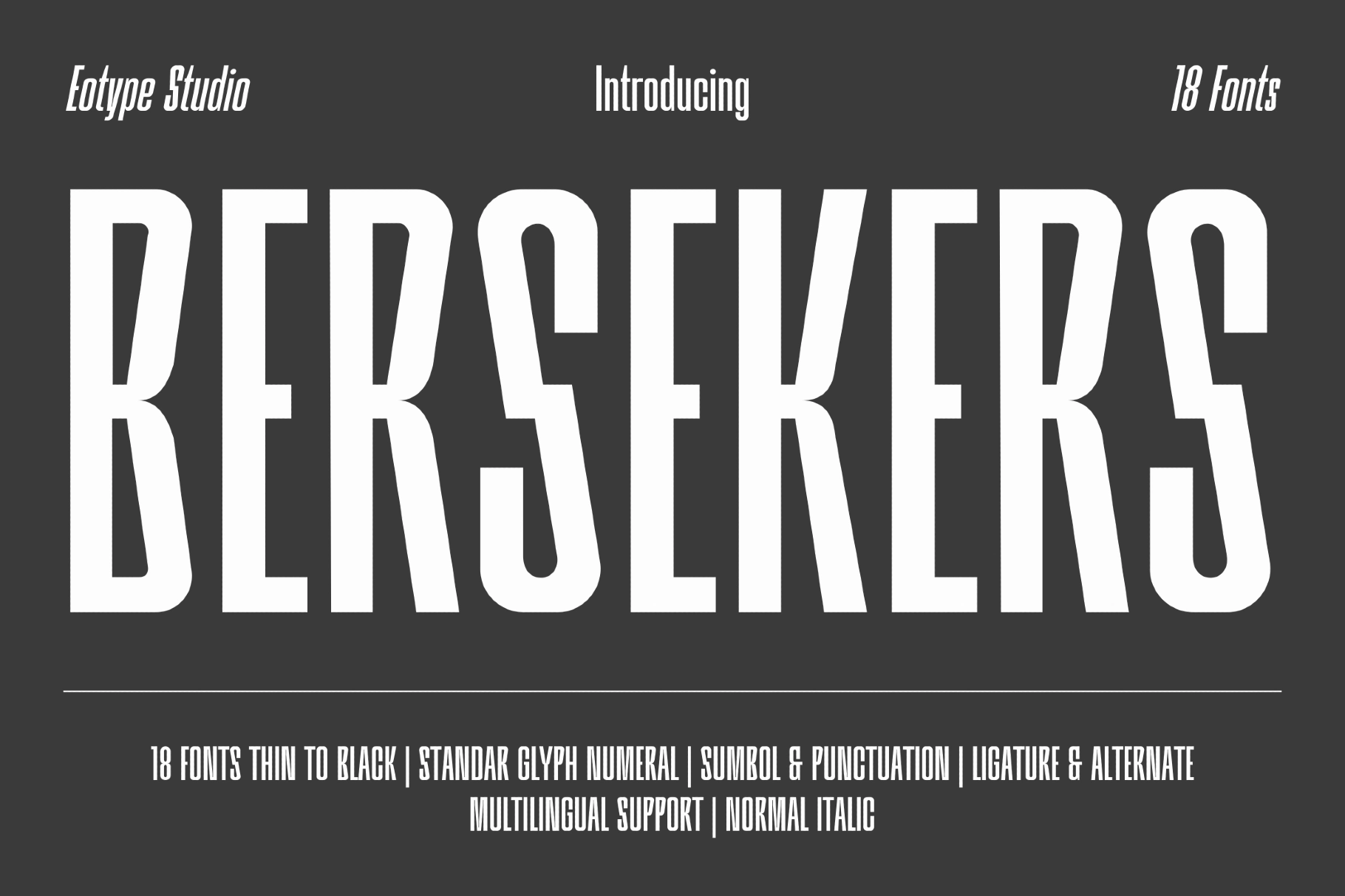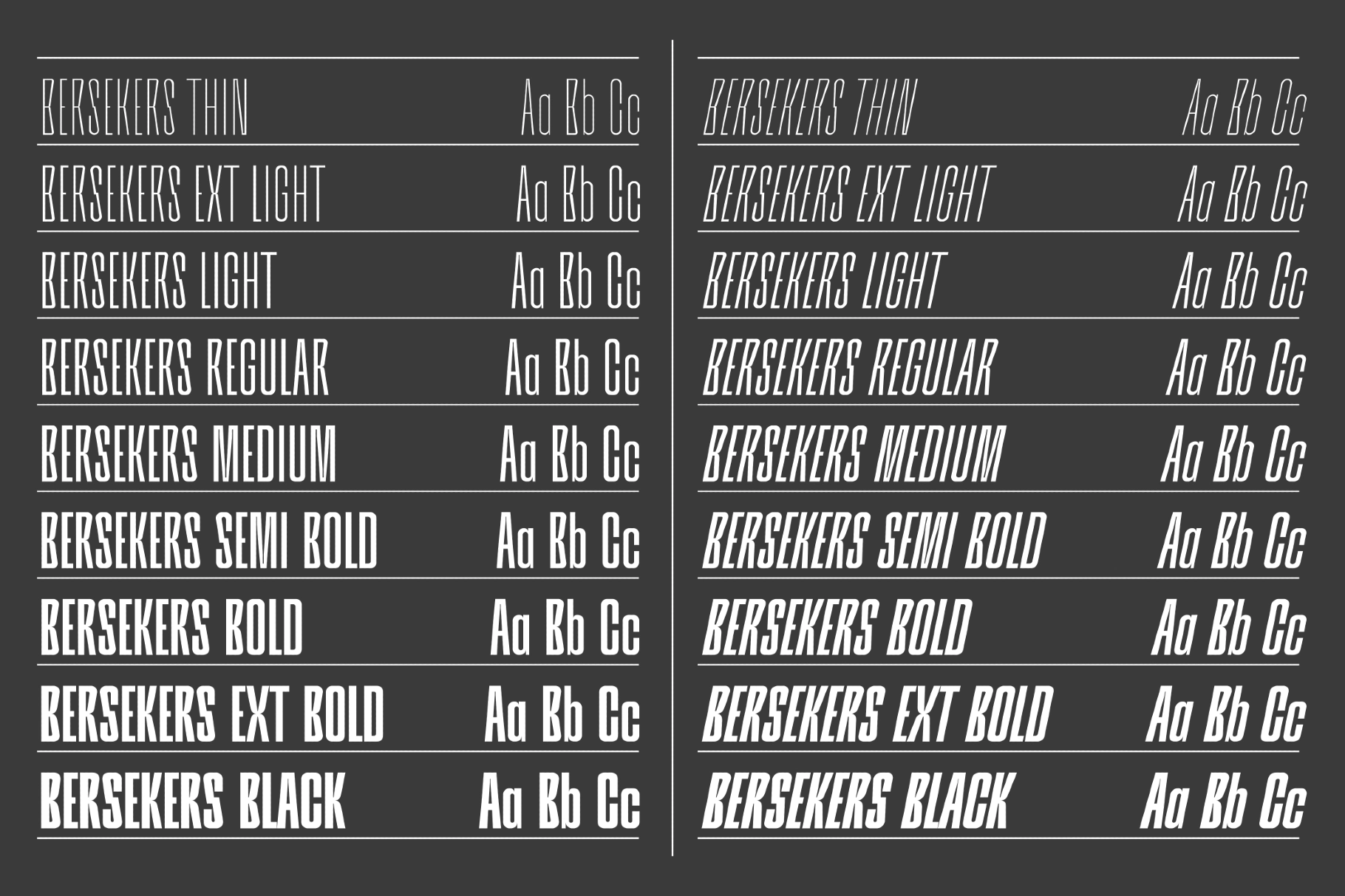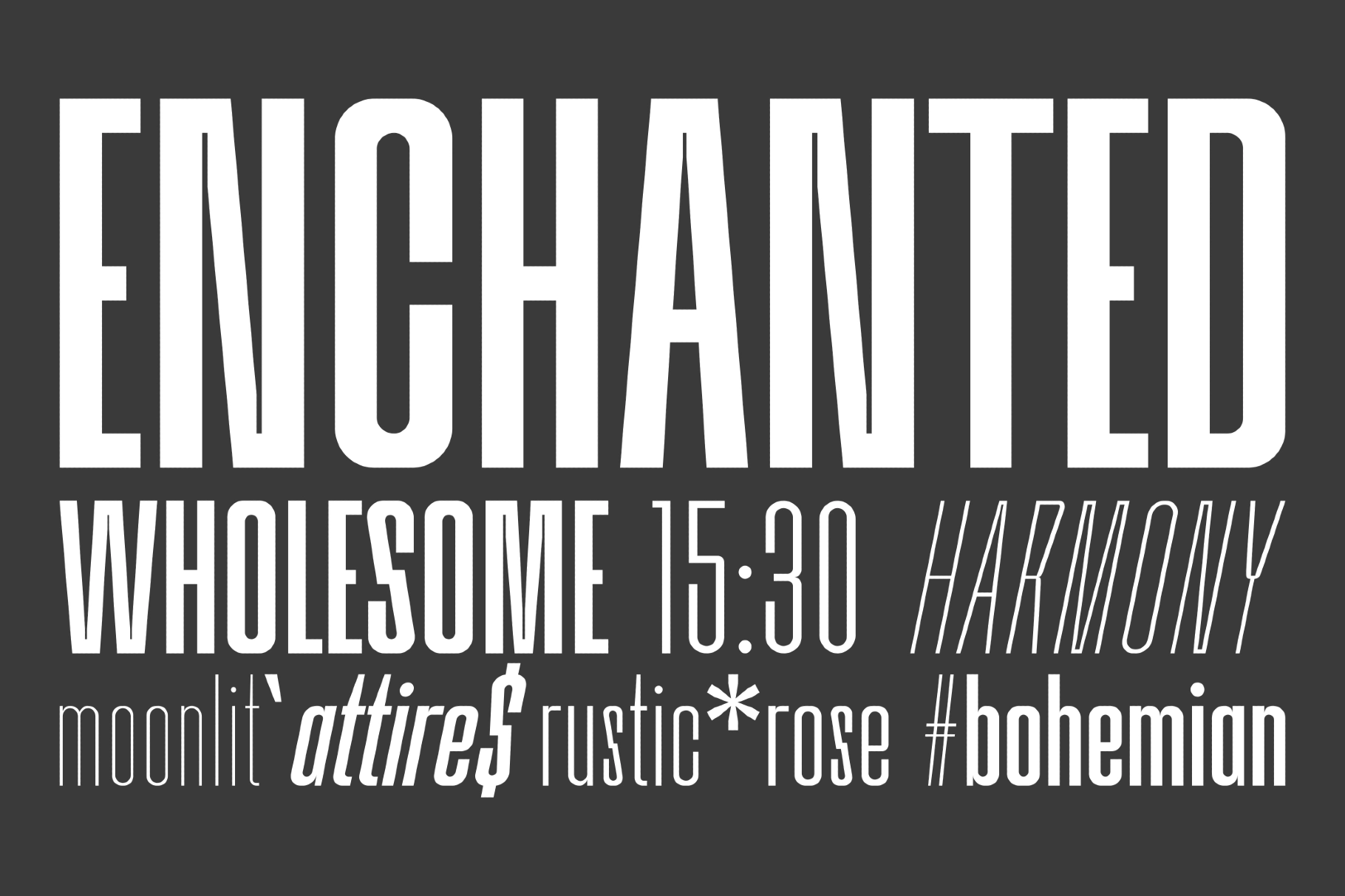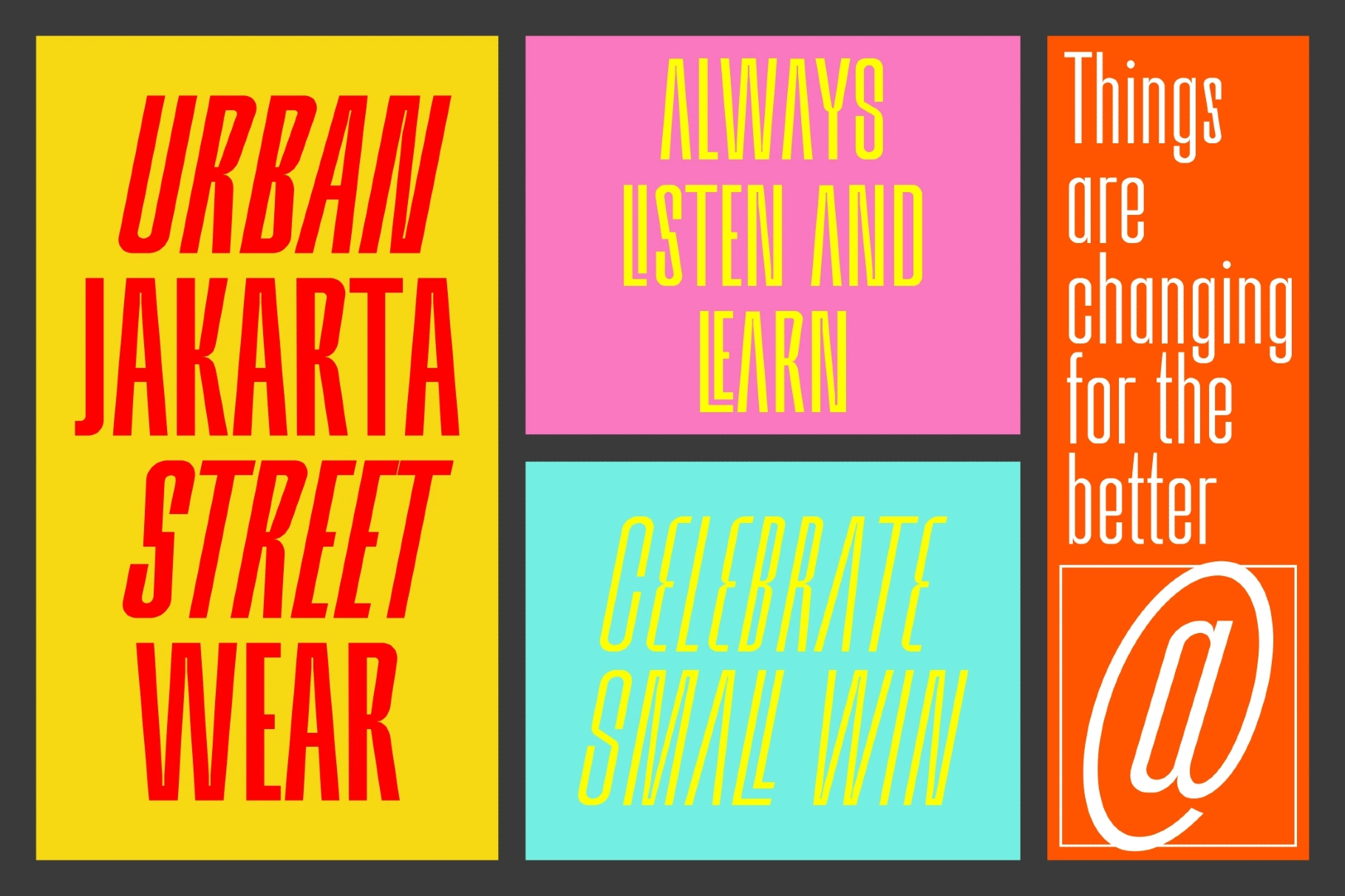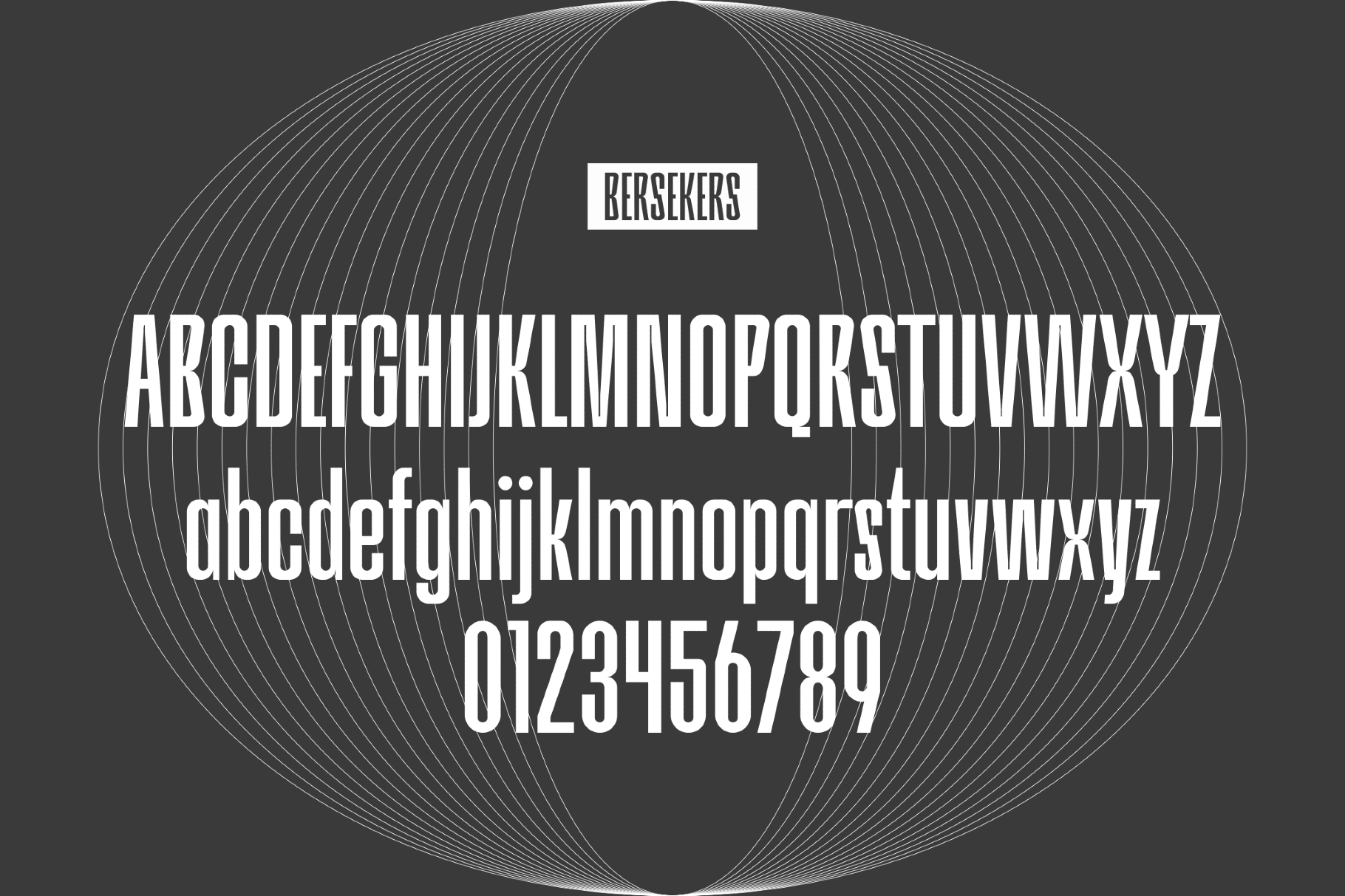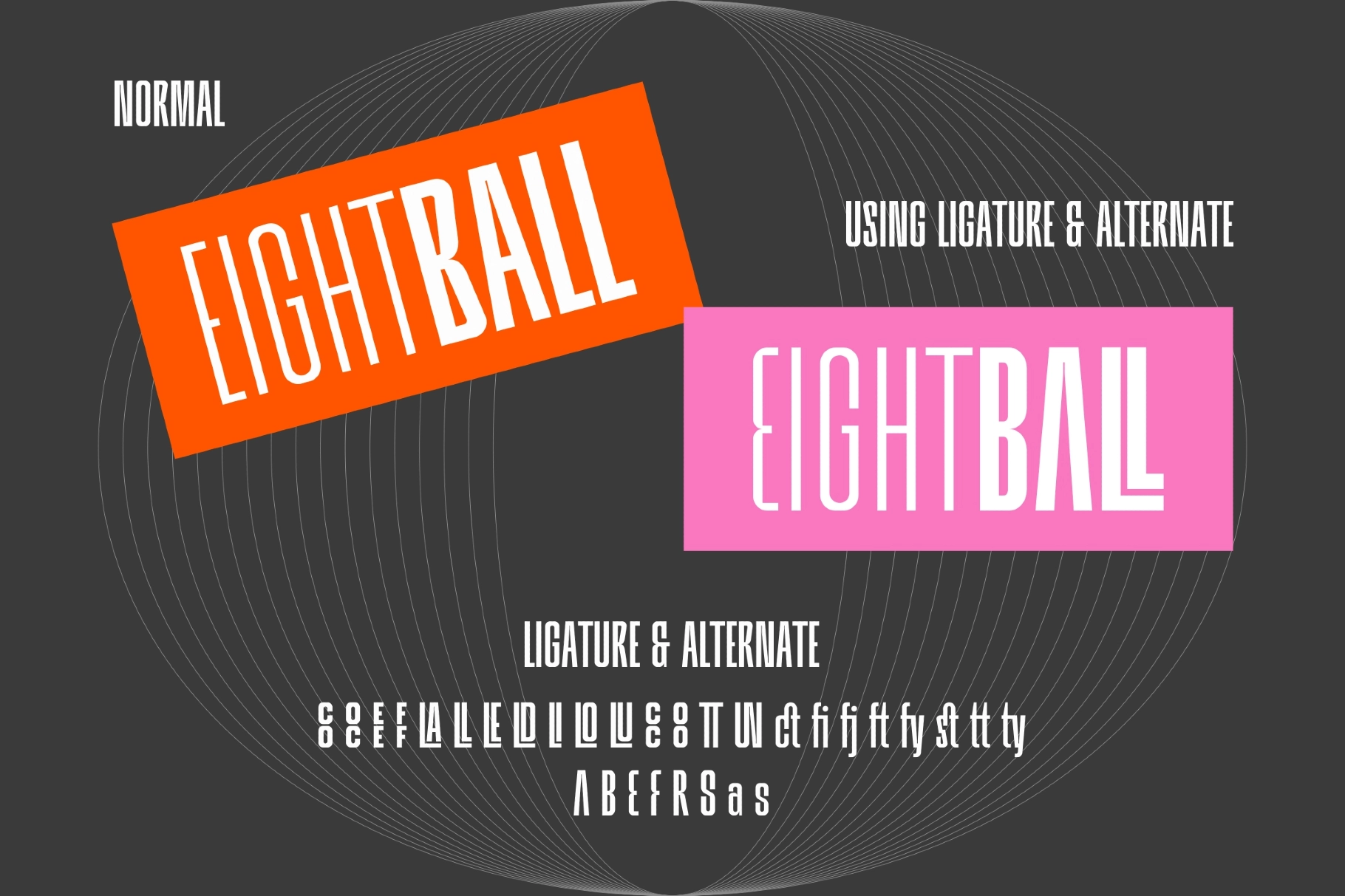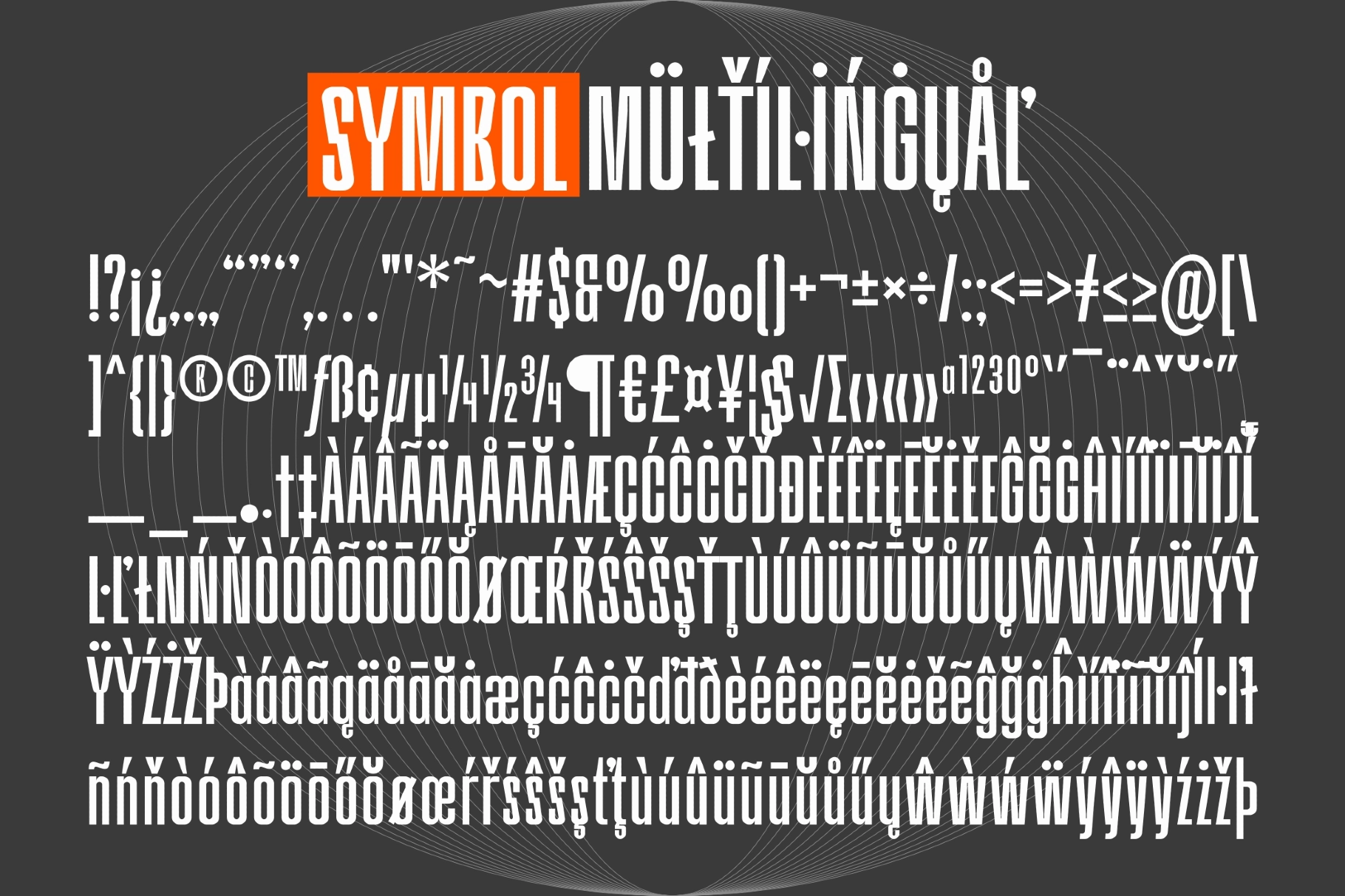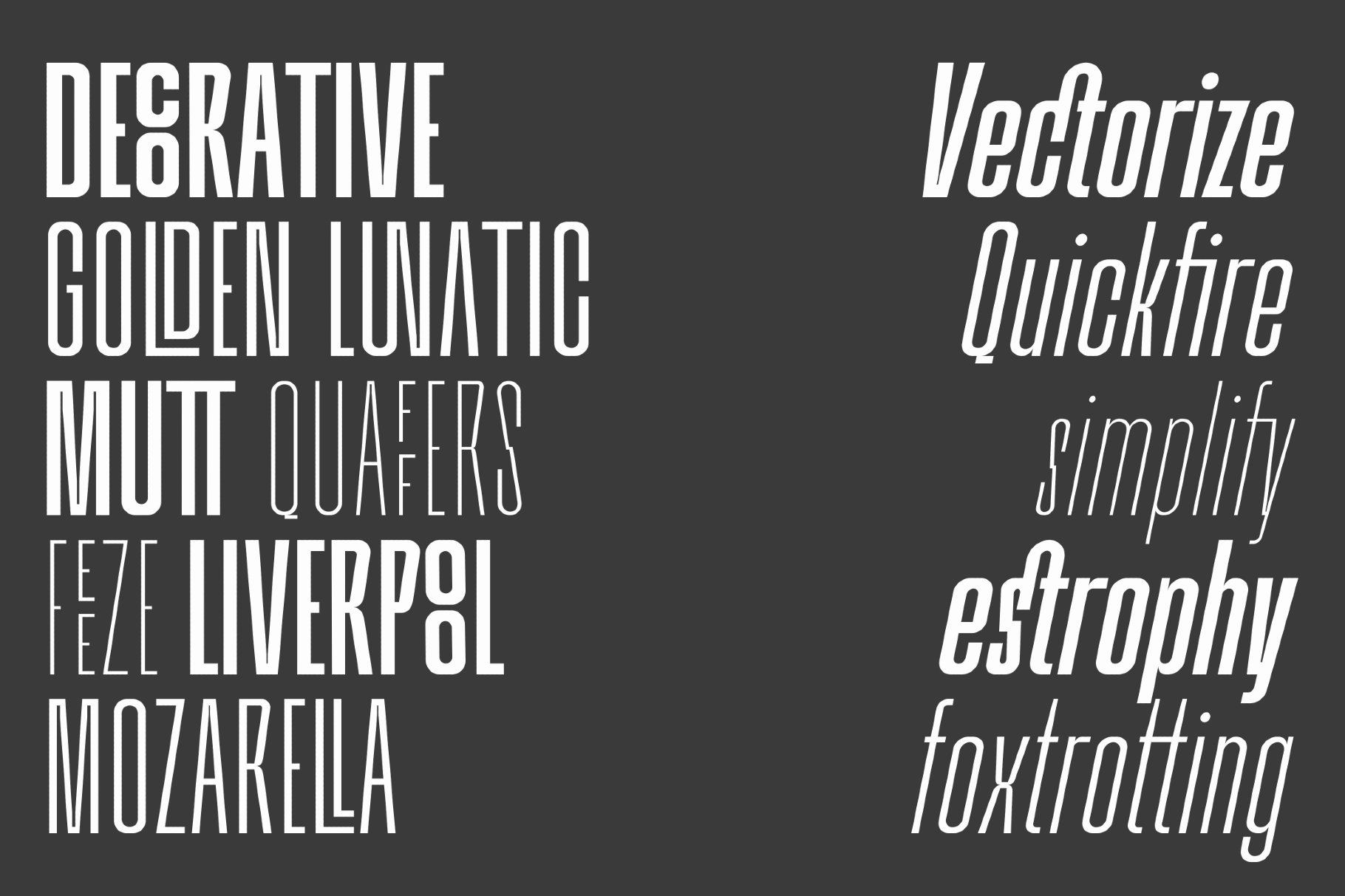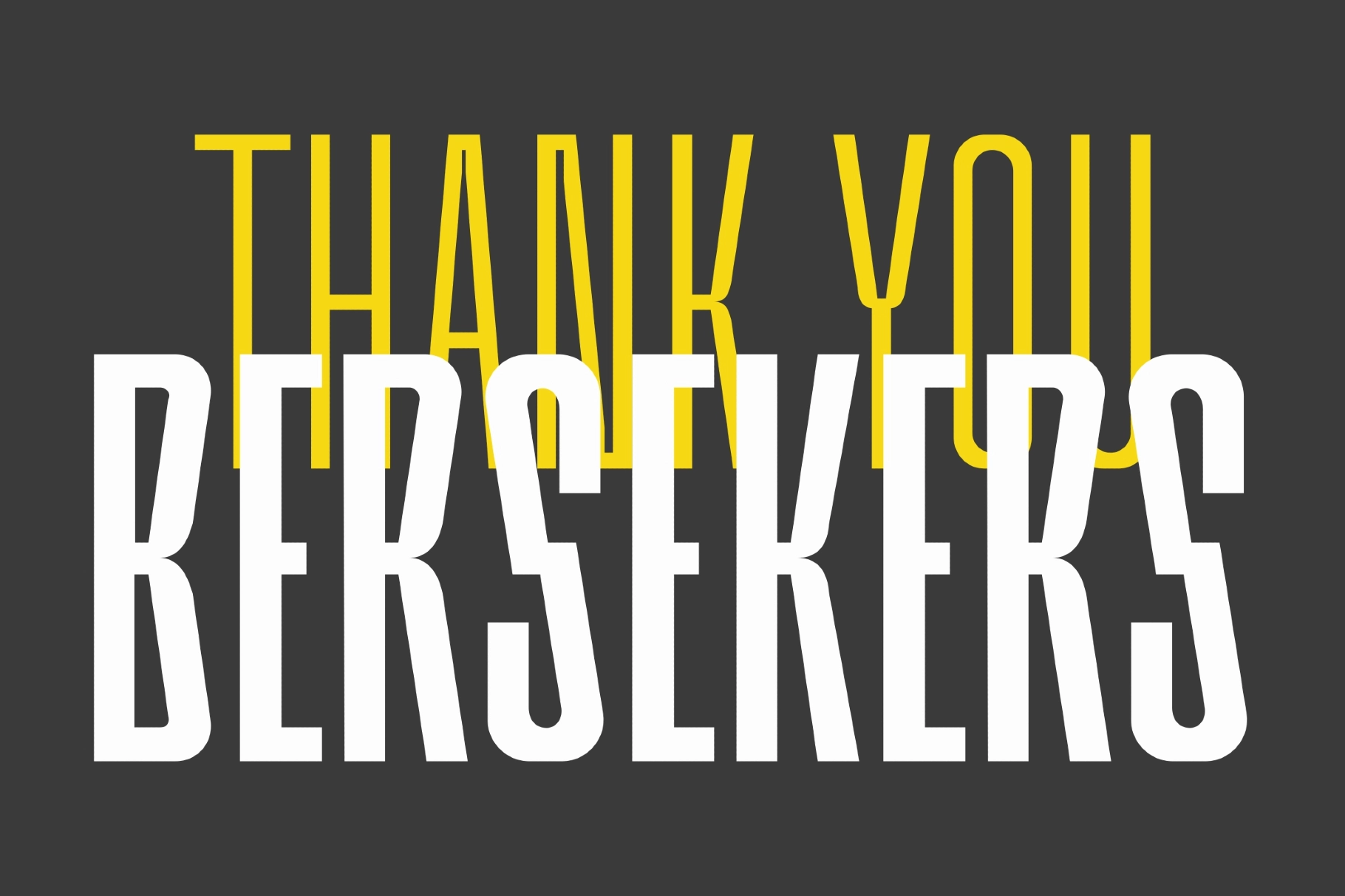
Bersekers - Urban Condensed Font
This condensed sans serif family is tall, narrow, and unapologetically graphic , with sharp vertical rhythm and enough weight range to cover quiet labels or loud headline work. Its urban character comes through in stretched letterforms, tight proportions, italic cuts, and bold display shapes that look ready for posters, apparel drops, music graphics, streetwear branding, and editorial layouts.
Use it for logos, headlines, packaging, magazine covers, signage, social media posts, event flyers, web banners, sports graphics, merch prints, album artwork, lookbooks, and more.